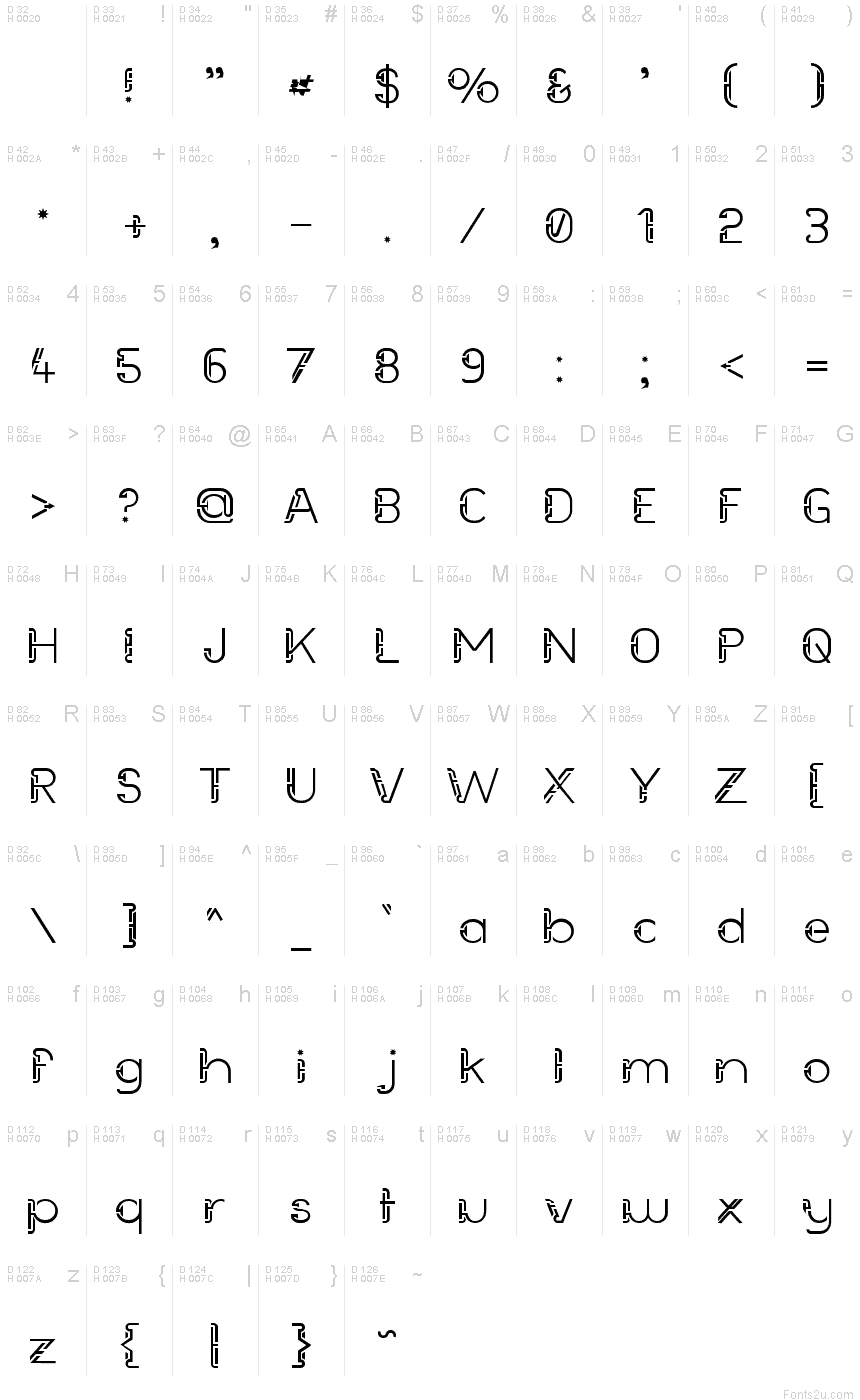
Future Sallow
Future Sallow font by Gemfonts is a free futuristic display typeface that turns every word into a sleek, looping circuit. Its monoline strokes bend into rounded corners, then snap into squared joints, creating a rhythm that feels both mechanical and fluid. The subtle gaps and overlapping paths add a sense of motion, as if the letters were drawn with a single continuous cable.
Using Future Sallow, headlines immediately read as tech-forward and experimental without becoming unreadable. This free font shines on sci‑fi posters, UI splash screens, music covers, esports branding, event titles, and bold logotypes. It works beautifully when set large with generous spacing, and pairs well with a clean geometric sans for supporting body text to keep layouts sharp and grounded.